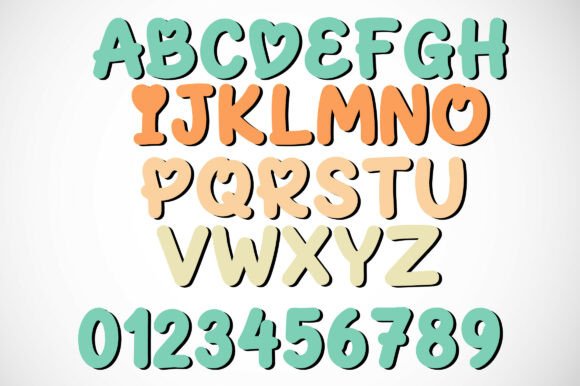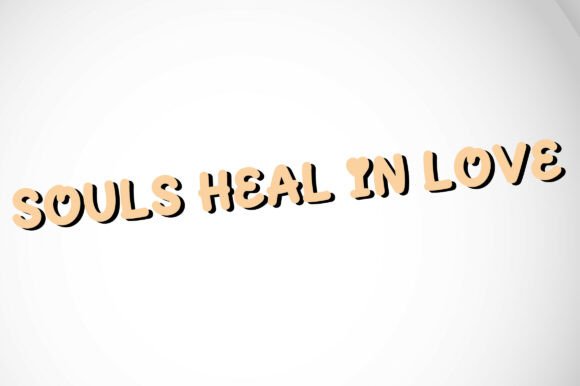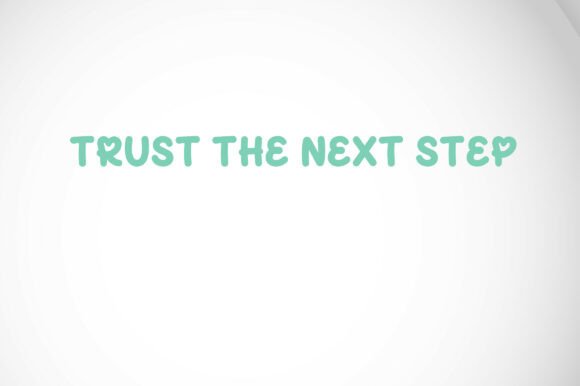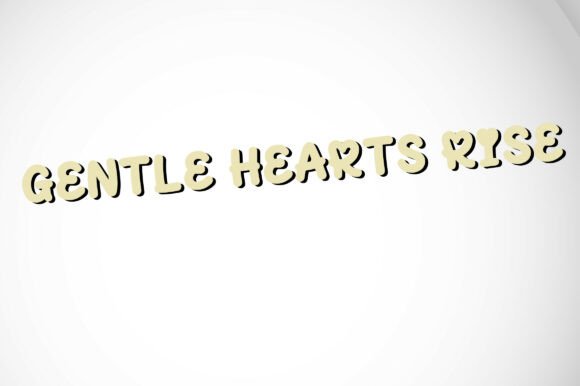
Introducing Gabriella Font: A Playful and Romantic Display Font
Are you looking for a font that can add a touch of sweetness and playfulness to your designs? Look no further than Gabriella Font, a beautiful and charming display font that’s perfect for a variety of creative projects. With its thick rounded strokes, soft bubbly shapes, and lovely heart-inspired accents, Gabriella is sure to capture the hearts of designers and crafters alike.
A Font with a Personal Touch
Gabriella Font is a handcrafted font that’s been designed to evoke a sense of romance and whimsy. Its uppercase letterforms feature bold shadow details and a range of sweet, rounded strokes that give it a friendly and approachable feel. Whether you’re designing a logo, poster, or social media graphic, Gabriella Font is the perfect choice for adding a personal touch to your work.
Key Features of Gabriella Font
So, what makes Gabriella Font so special? Here are just a few of its key features:
- Uppercase letters A-Z and numbers 0-9: Gabriella Font includes a full range of uppercase letters and numbers, making it perfect for a variety of design projects.
- Thick rounded strokes: The font’s thick rounded strokes give it a bold and playful feel that’s perfect for headlines and titles.
- Soft bubbly shapes: The soft, bubbly shapes of Gabriella Font add a touch of whimsy and romance to any design.
- Bold shadow details: The font’s bold shadow details add depth and dimension to any design, making it perfect for logos, posters, and other eye-catching graphics.
- Lovely heart-inspired accents: The heart-inspired accents in Gabriella Font add a touch of sweetness and romance, making it perfect for designs that require a personal touch.
Gabriella Font is a versatile font that’s perfect for a wide range of design projects, including:
- Logos: Gabriella Font is perfect for creating eye-catching logos that require a bold and playful font.
- Posters: The font’s thick rounded strokes and bold shadow details make it perfect for creating eye-catching posters that grab attention.
- Invitations: Gabriella Font is perfect for creating sweet and playful invitations for weddings, birthday parties, and other special occasions.
- Greeting cards: The font’s lovely heart-inspired accents make it perfect for creating greeting cards that require a personal touch.
- Packaging: Gabriella Font is perfect for creating eye-catching packaging that requires a bold and playful font.
- Stickers: The font’s thick rounded strokes and bold shadow details make it perfect for creating eye-catching stickers that grab attention.
- Kids’ designs: Gabriella Font is perfect for creating fun and playful designs for kids, including children’s books, posters, and other educational materials.
- Social media graphics: The font’s bold and playful feel makes it perfect for creating eye-catching social media graphics that grab attention.
Why Choose Gabriella Font?
So, why choose Gabriella Font for your next design project? Here are just a few reasons:
- Unique and eye-catching: Gabriella Font is a unique and eye-catching font that’s sure to capture the hearts of designers and crafters alike.
- Handcrafted with love: The font’s handcrafted design gives it a personal touch that’s perfect for designs that require a sweet and playful feel.
- Versatile: Gabriella Font is a versatile font that’s perfect for a wide range of design projects, from logos and posters to invitations and social media graphics.
- Easy to use: The font is easy to use and comes with a full range of uppercase letters and numbers, making it perfect for designers of all skill levels.
In conclusion, Gabriella Font is a beautiful and charming display font that’s perfect for designers and crafters who require a sweet and playful font for their next project. With its thick rounded strokes, soft bubbly shapes, and lovely heart-inspired accents, Gabriella Font is sure to capture the hearts of anyone who sees it. So why wait? Download Gabriella Font today and add a touch of romance and whimsy to your designs!